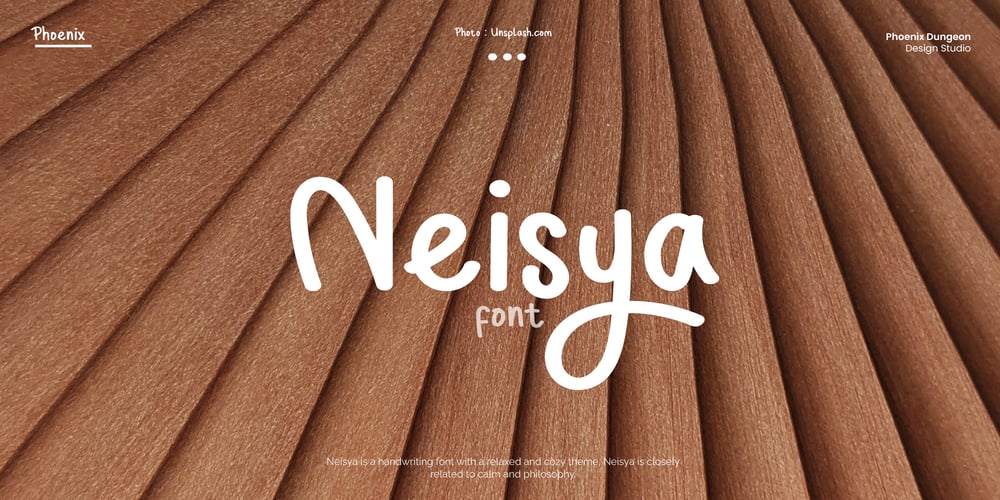
Neisya
Neisya font
Neisya Font Family was designed by Alif Naufal Muzakki and published by Phoenix Group. Neisya contains 1 styles and family package options. Neisya is a handwriting font with a relaxed and cozy theme, Neisya is closely related to calm and philosophy.